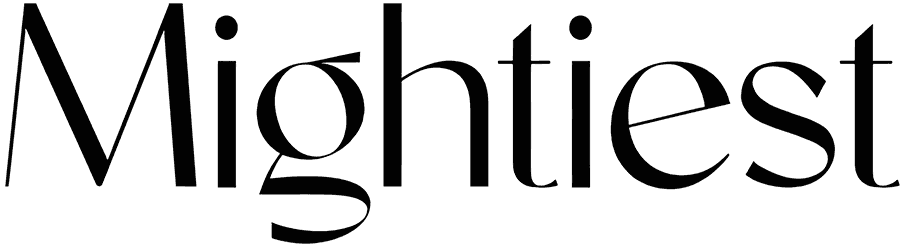
Mightiest Font
Borrow the hot aura of Mightiest for your logos and see where it takes you. We have so many different sans-serif fonts to offer you on Resource Boy, and yet, Mightiest somehow manages to set itself apart from them all.
It’s all thanks to its confident tone and stylish look that Mightiest is so popular. As soon as a branding design comes along, this modern font makes its way to your business cards for wedding planners, interior designers, jewelry makers, etc.